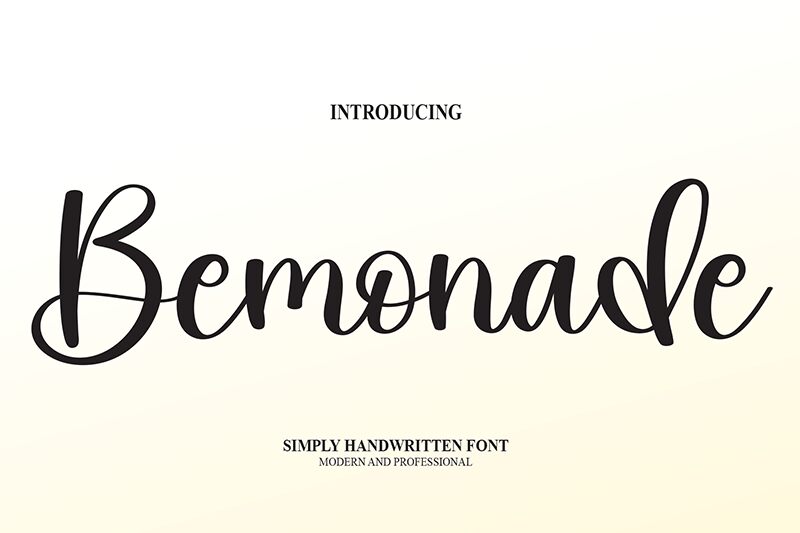
Bemonade
Bemonade, a stunning semi-light calligraphy font designed by scratchones, is the perfect choice for those seeking an elegant and sophisticated touch. Its fluid strokes and ornate curves make it a versatile font that can be used for various projects such as wedding invitations, branding materials, or even social media graphics. The Bemonade typeface brings a sense of class and refinement to any design project while maintaining a lightness that makes it easy on the eyes. With its unique style and graceful look, Bemonade is sure to make your projects stand out from the crowd.
the latest style letters are perfect for wall displays, wedding invitations, social media post logos,
advertisements, product packaging, product designs, labels, photography, watermarks, invitations, stationery,
and any project that requires taste handwriting.